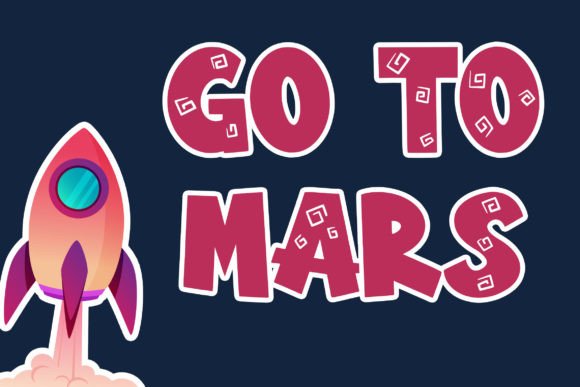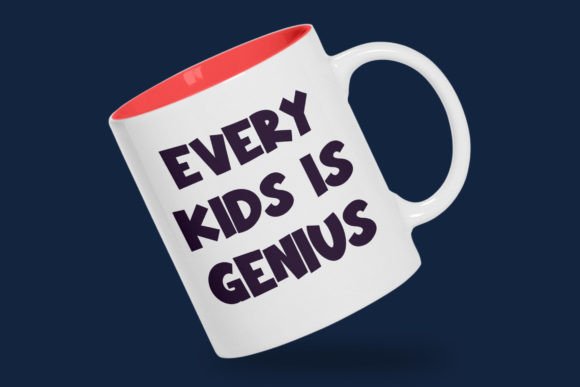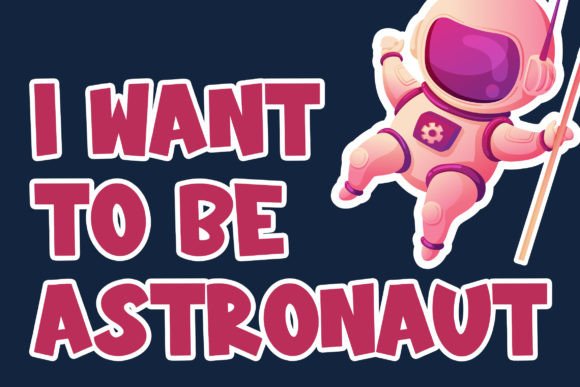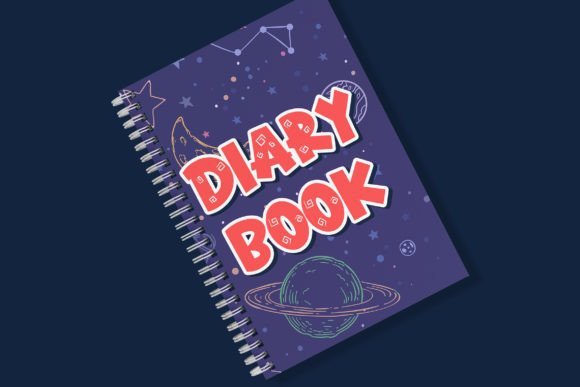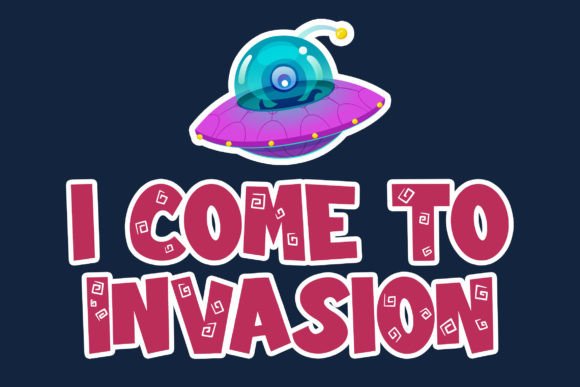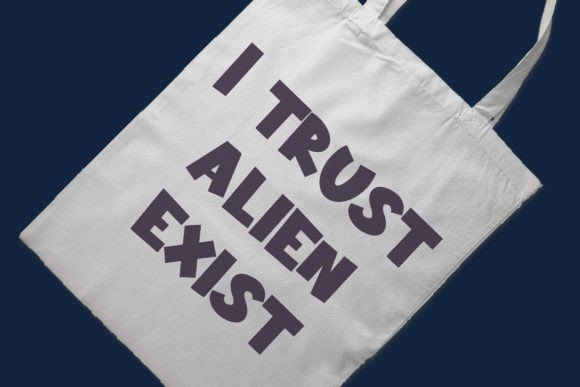
Introduction to Cosmic Rock Font
Cosmic Rock – A Comic Display Font with distinctive cosmic characters.
It is perfect for branding projects, logos, wedding designs, media posts, advertisements, product packaging, product designs, labels, photography, watermarks, invitations, stationery, and any project that needs a bold appearance .
Cosmic Rock Font offers exceptional quality and versatility, making it a valuable addition to your design toolkit. Whether you’re creating for personal projects or commercial use, Cosmic Rock Font delivers professional results.